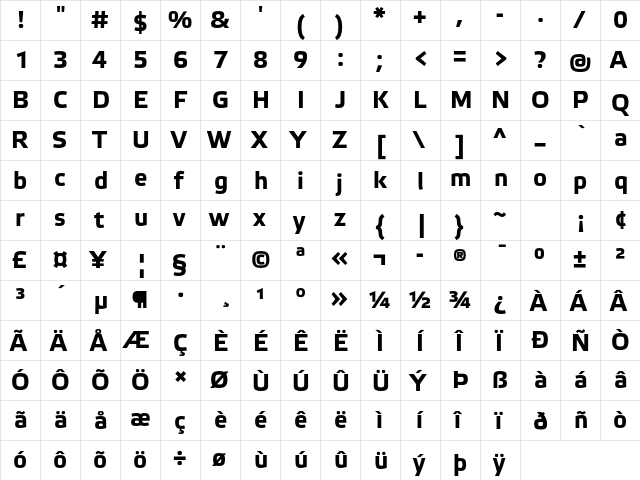
Elektra Text Pro Bold Font Preview
Elektra Text Pro Bold
Elektra Text Pro Bold Font Details
| Designer | Frantisek Storm |
Design Context for Elektra Text Pro Typeface
Elektra Text Pro takes a measured approach to typography — its balanced proportions and neutral character make it a reliable workhorse for both digital and print work. The heavy weight commands attention and anchors typographic hierarchies.